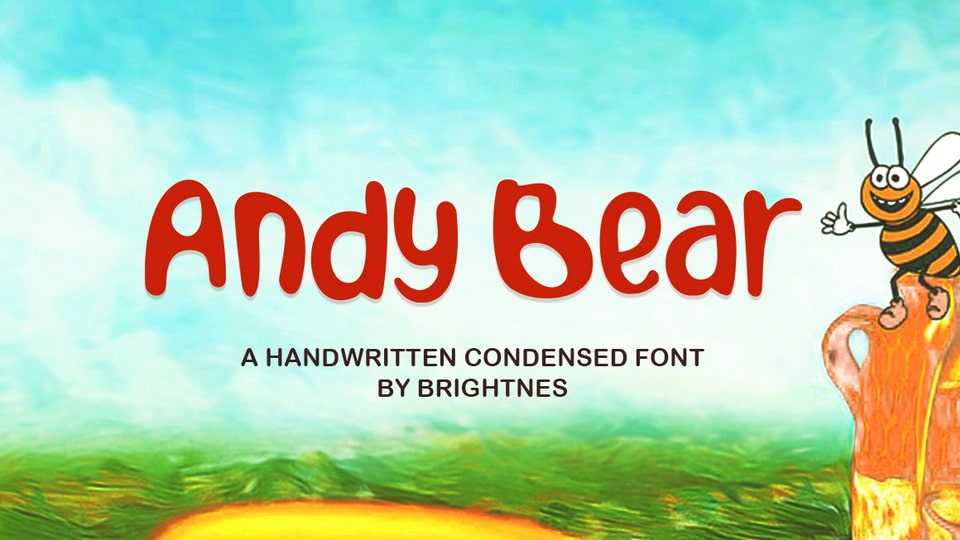
Download Andy Bear font, a hand drawn typeface that embodies oddity and authenticity. This dazzling display font will turn any creative idea into a standout.